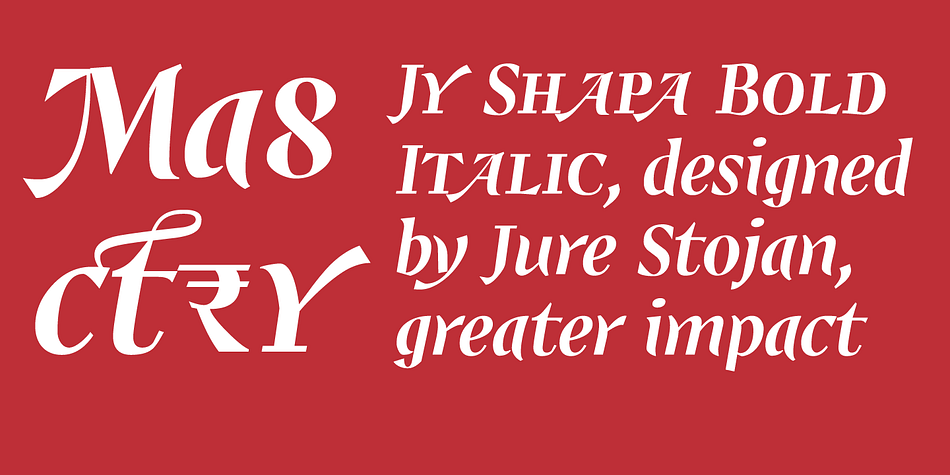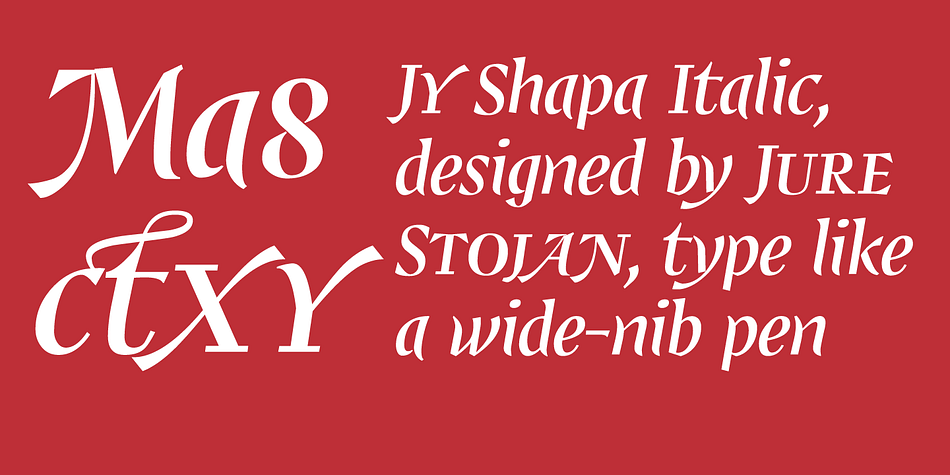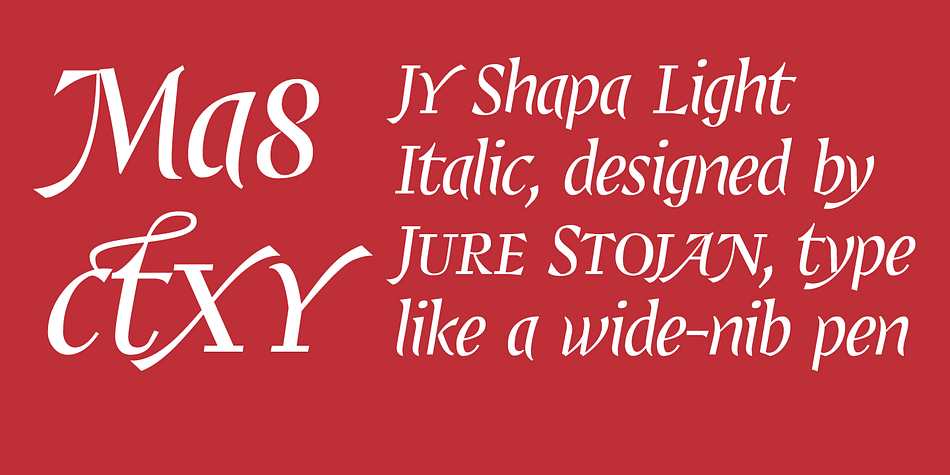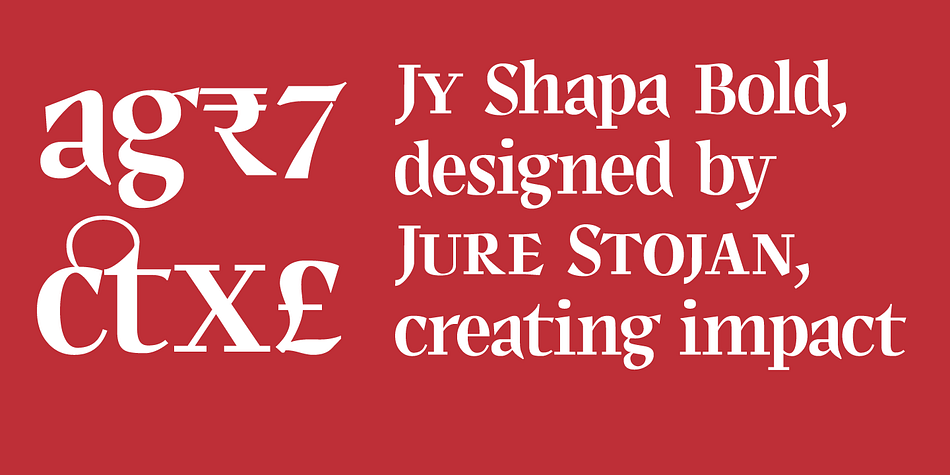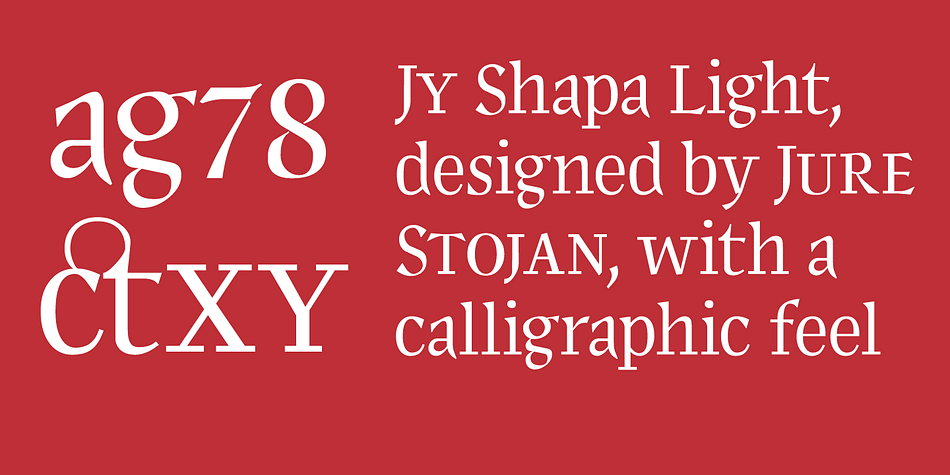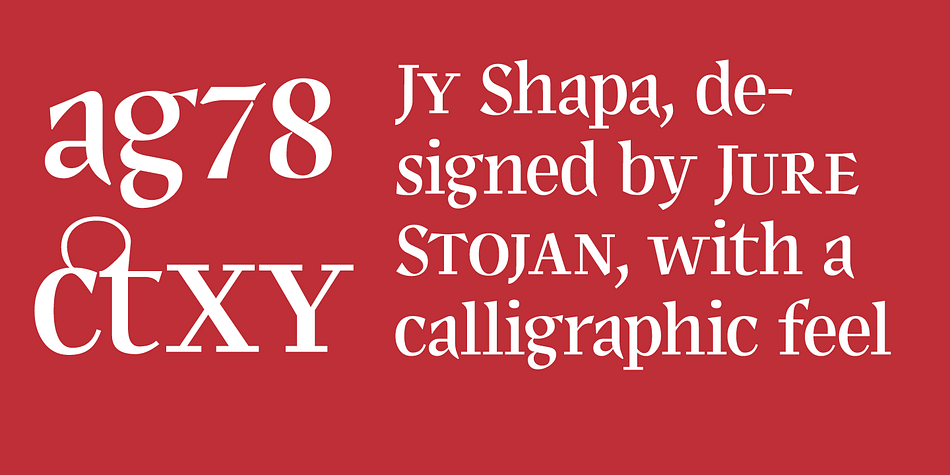
Shapa JY is a serif font family. This typeface has six styles and was published by JY&A Fonts.
Designed by Jure Stojan, JY Shapa — his first serif family for JY&A Fonts — has a wide-pen, calligraphic feel, with the upper half of the letters reasonably conservative to aid recognition, but the lower half more decorative and dynamic to achieve a specific rhythm. The italics are more dynamic, with the upper halves more flowing, with Stojan taking greater liberties with the design.
Ligatures such as ct and st are included, as well as small caps for all weights. The JY Shapa fonts come with over 5,000 kerning pairs each.